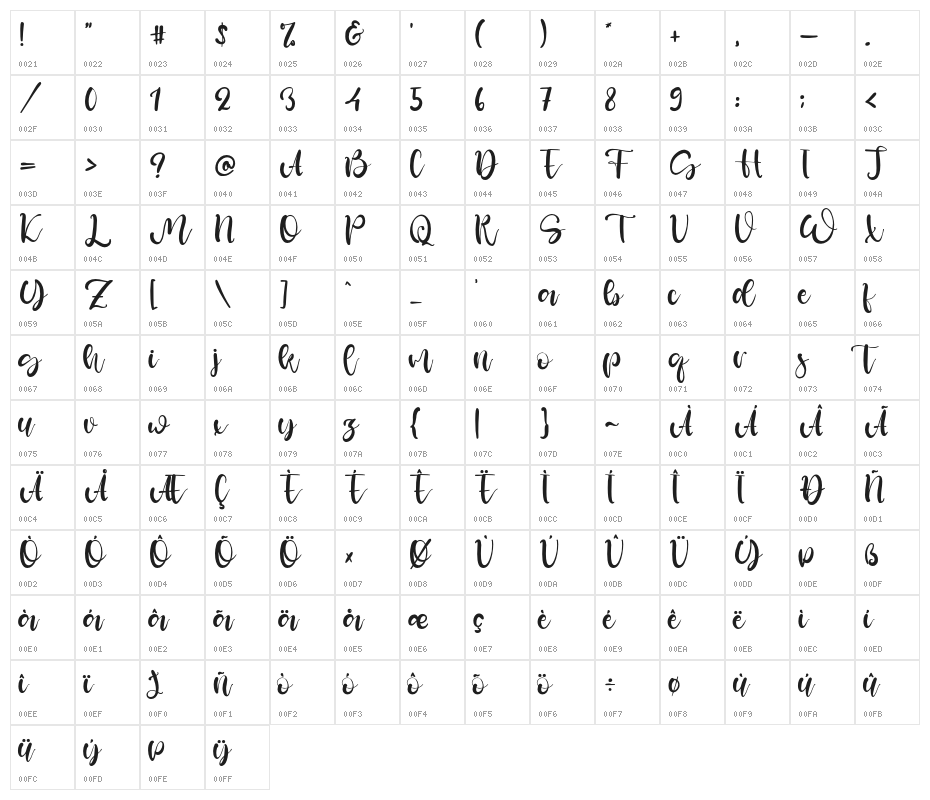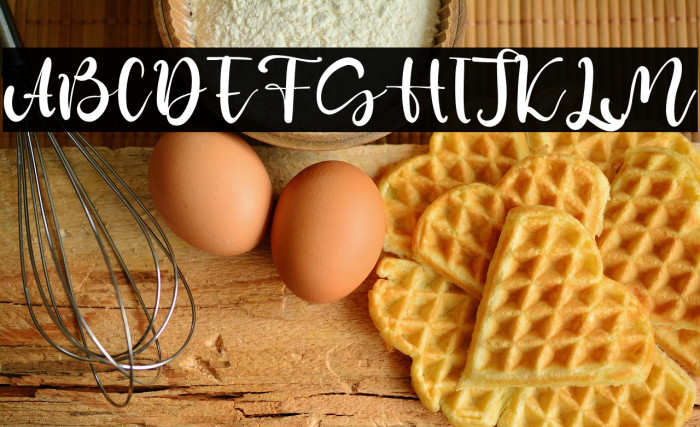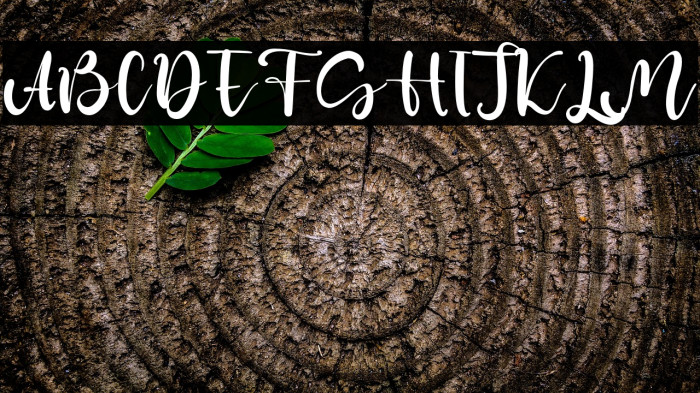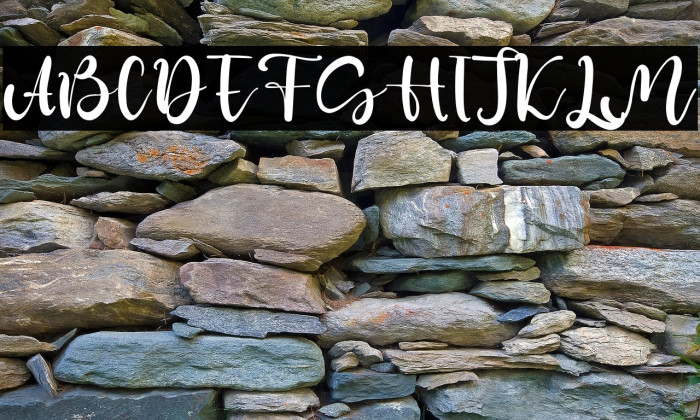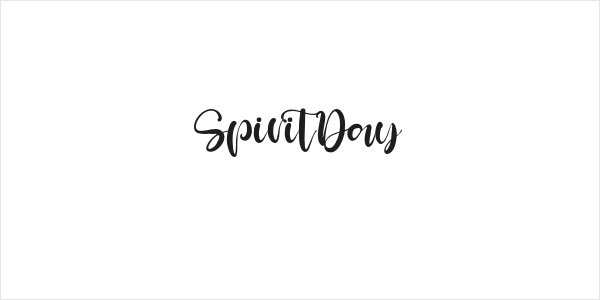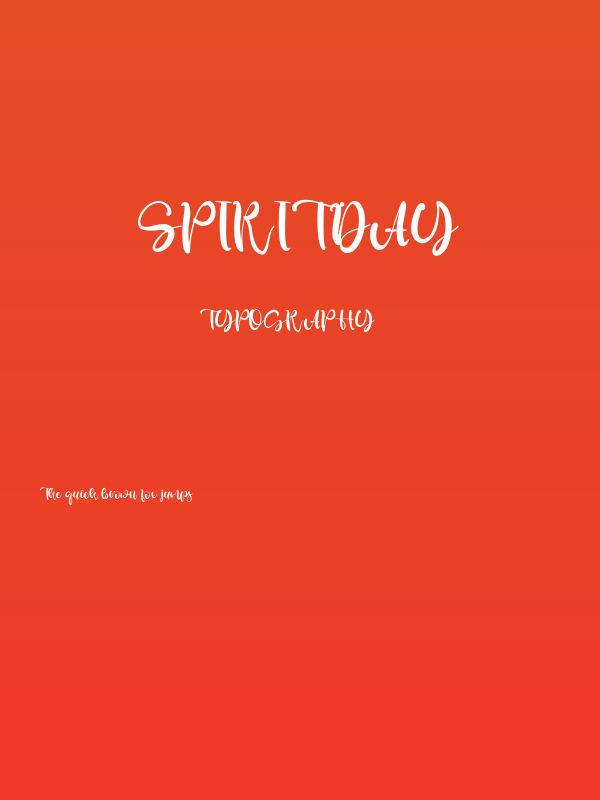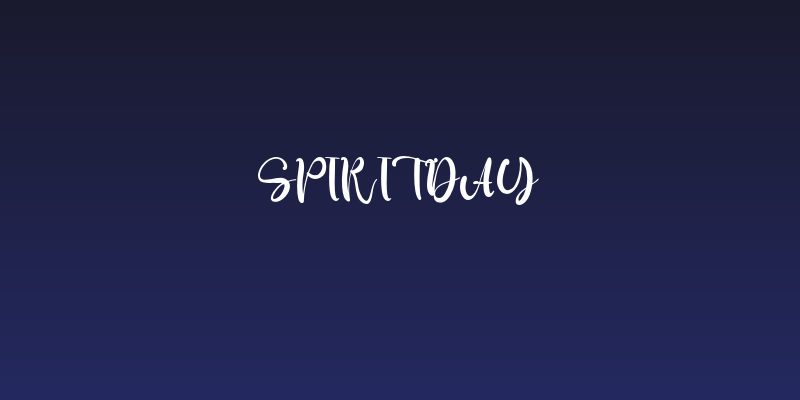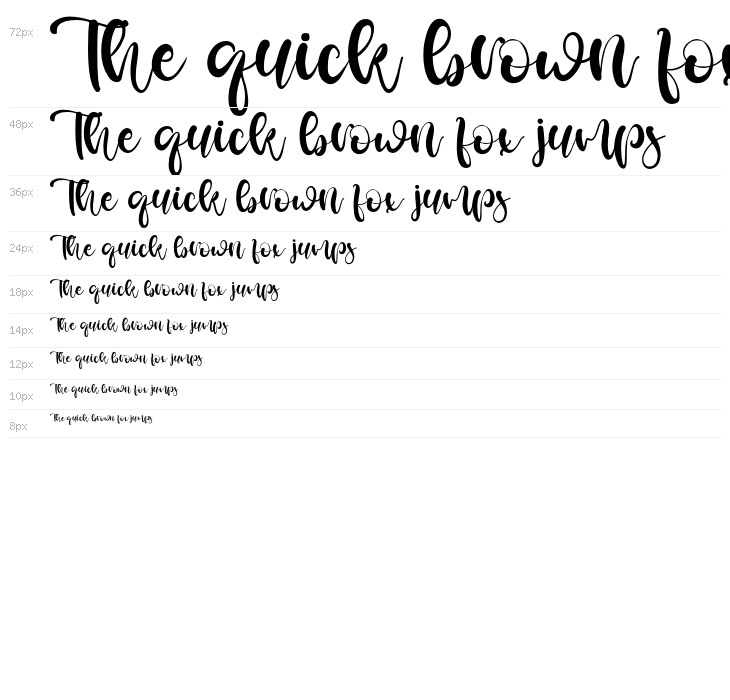
SpiritDay Font
SpiritDay Description
This font features a lively and expressive script style, characterized by its flowing and interconnected letterforms. The uppercase letters exhibit a playful elegance with varied stroke widths, while the lowercase letters maintain a consistent rhythm, enhancing readability. The numerals are bold and slightly rounded, complementing the overall aesthetic. Special characters are creatively designed, adding a whimsical touch. The font's dynamic curves and loops give it a sense of movement and energy, making it ideal for projects that require a personal and artistic flair.
| Use Case | Logos, Headlines, Invitations |
| Proposed Projects | Ideal for wedding invitations, greeting cards, branding, and social media graphics. |